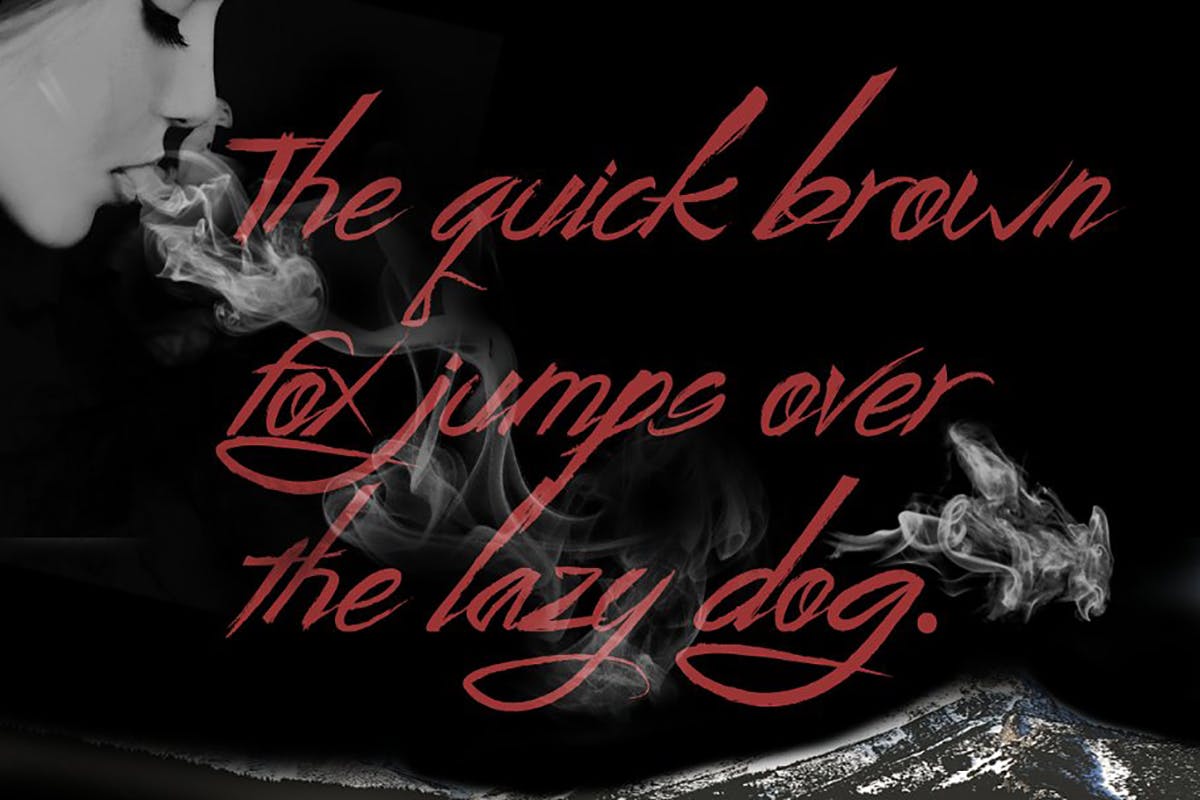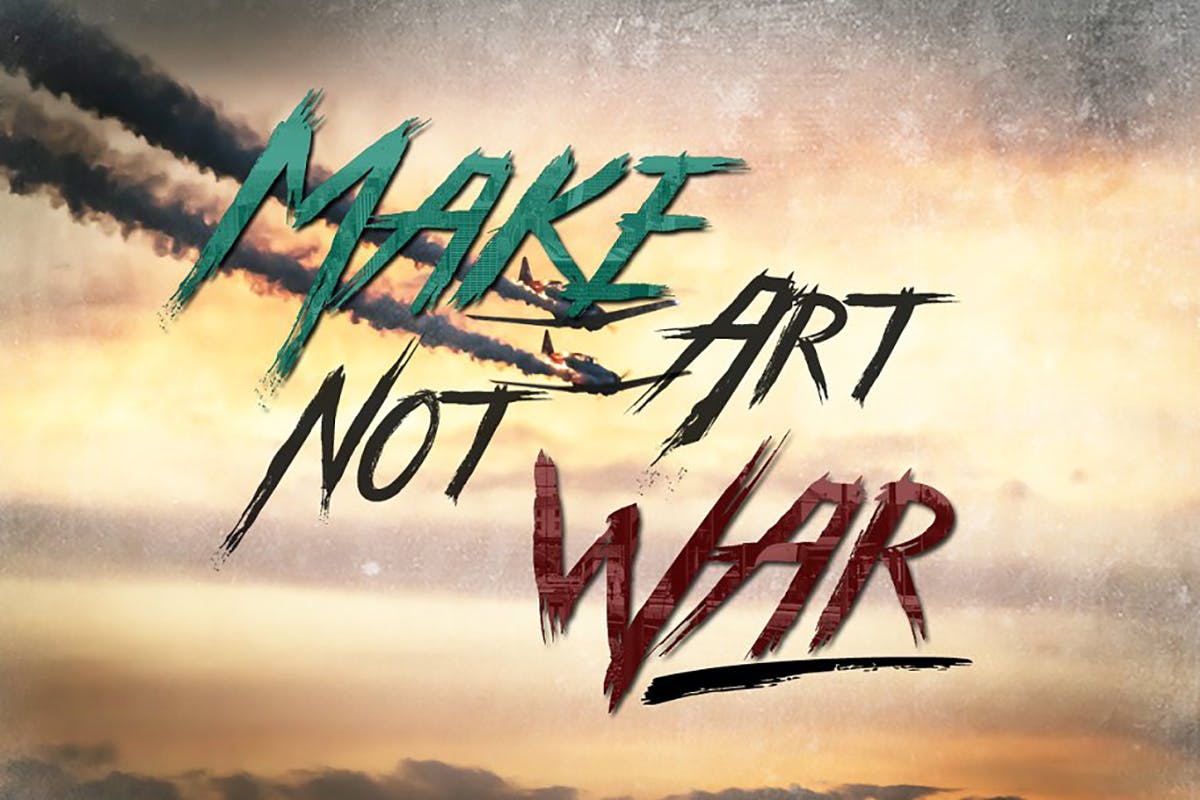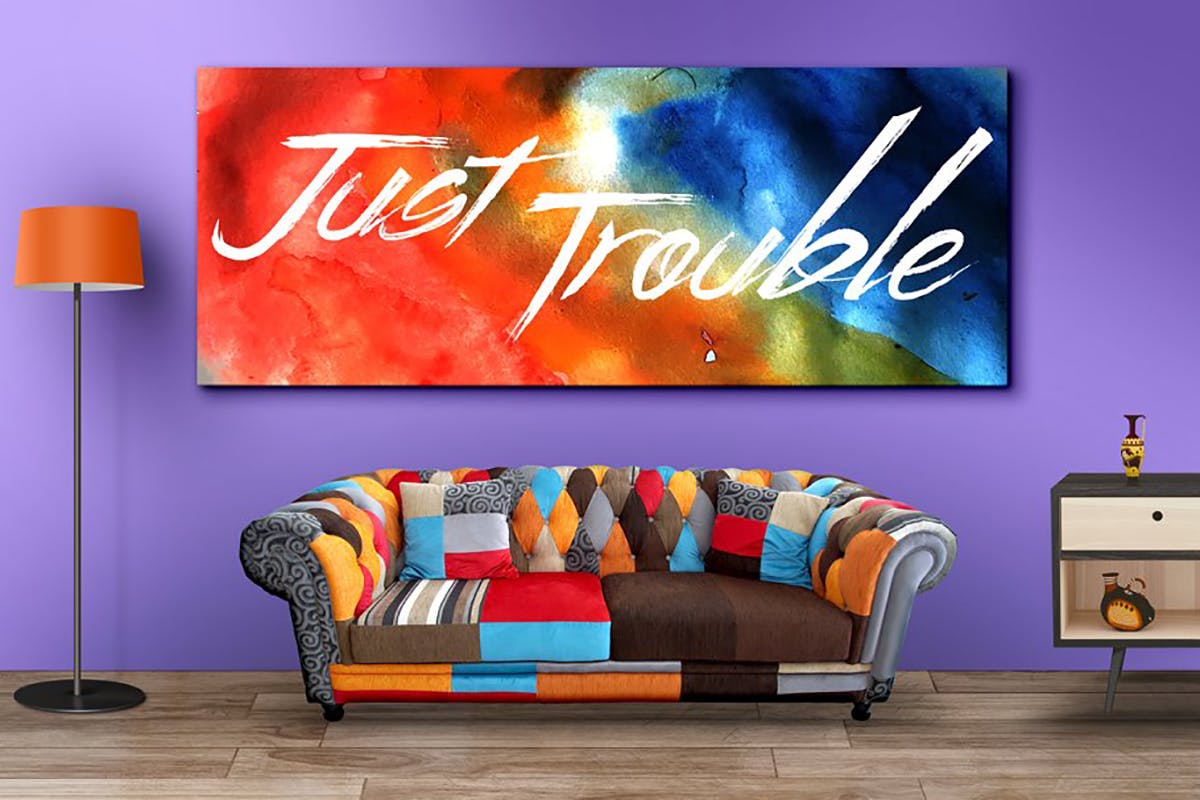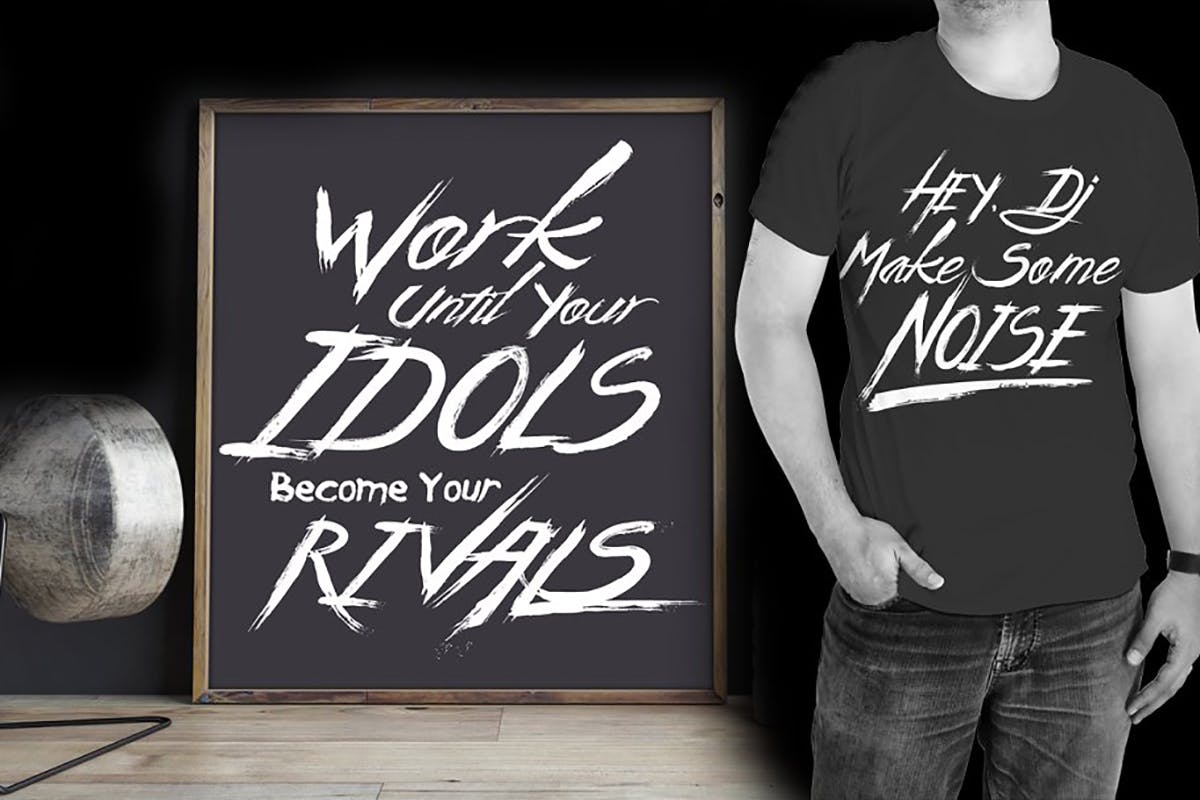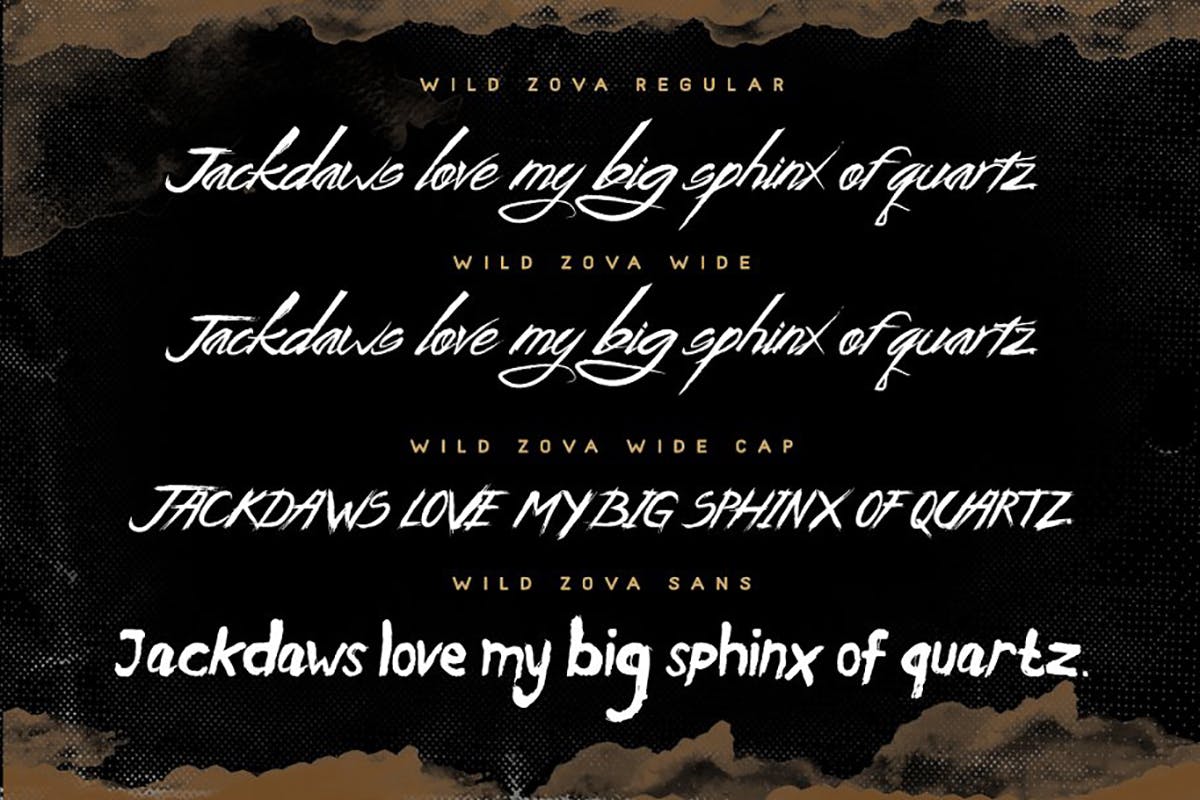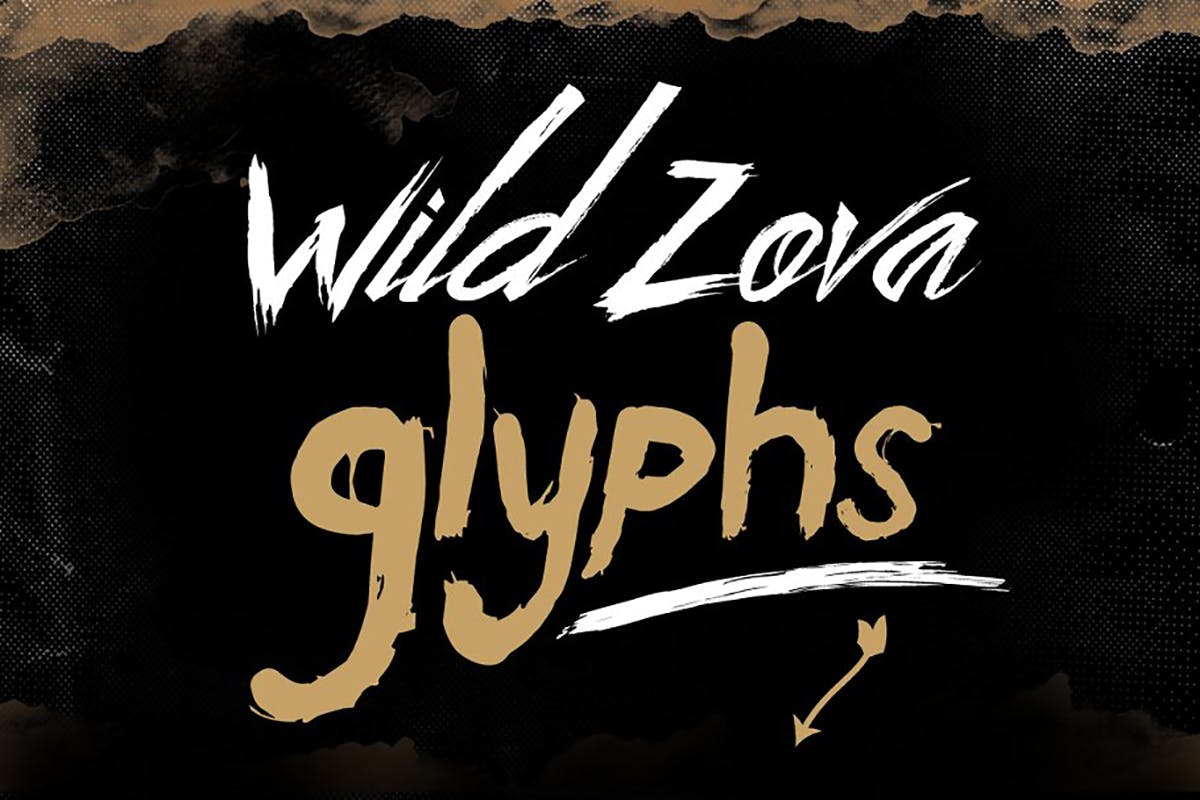
Wild Zofa Grunge Free Font
Wild Zofa Grunge Free Font is a typeface with the name coming from the inspiration of Zombies and Vampires Hybrid. It appears from the dark world from the other side of our life. Moreover, this display font present in messy grunge style with deliciously blood splatter. This hand-drawn brush font was made with modern vintage calligraphy style. Feel free to use the free demo for both personal and commercial use. It is suitable for any kind of design, such as element design, event poster, t-shirt, logo, badges, sticker, and other awesome work.